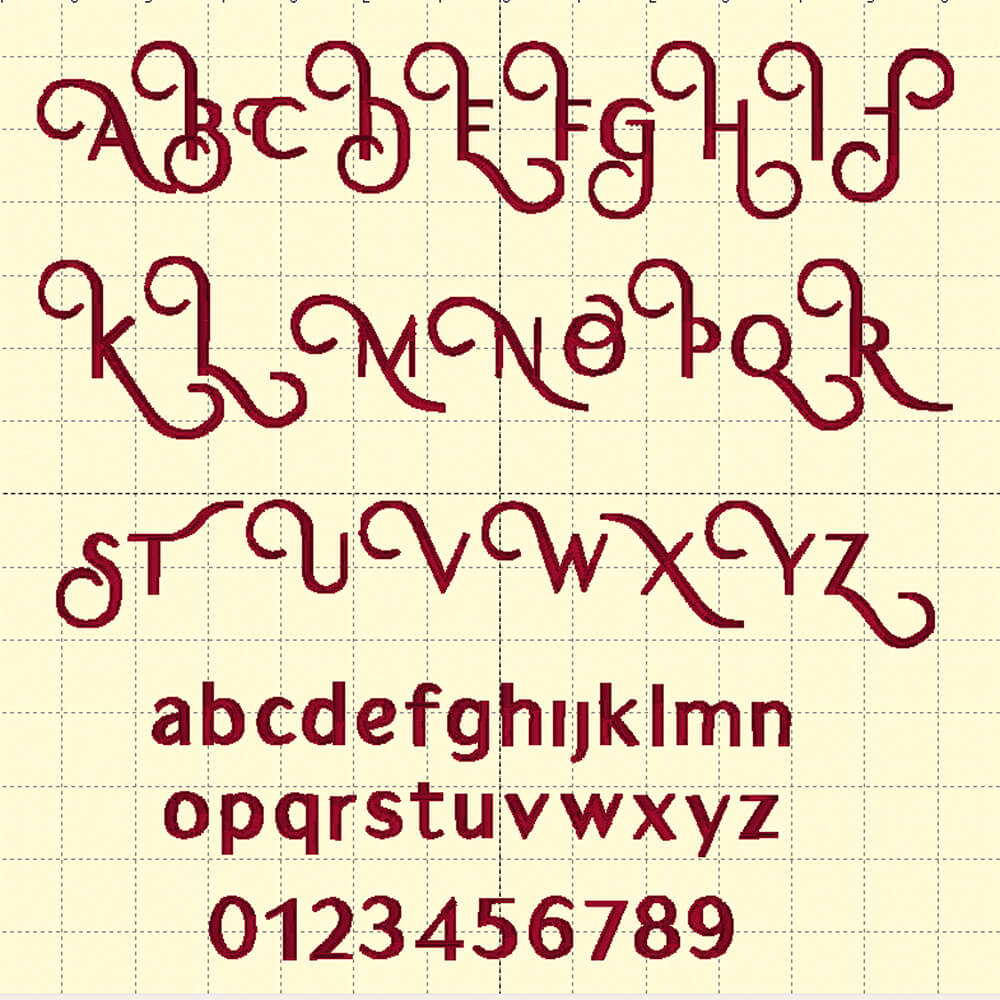
Marcelline Embroidery Font
The Marcelline Embroidery font is a sleek and elegant letter set with a subtle retro flair that evokes timeless sophistication.
Marcelline Embroidery Font
All upper case and lower case letters and numbers